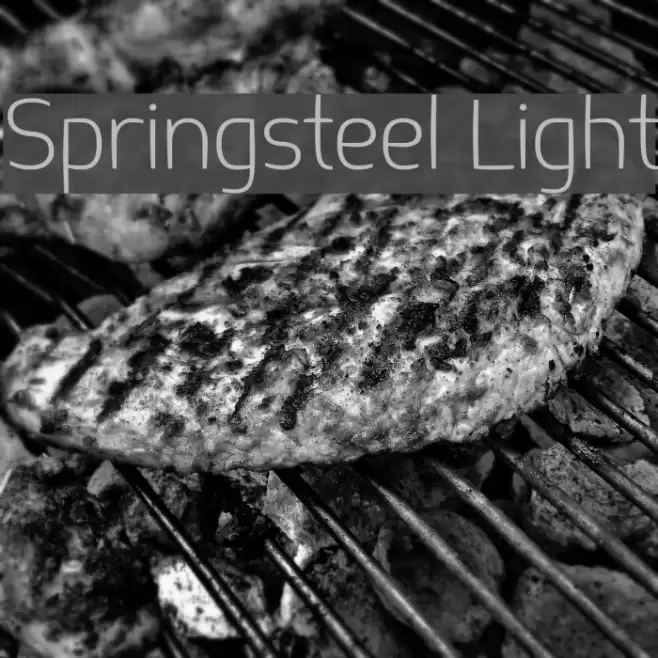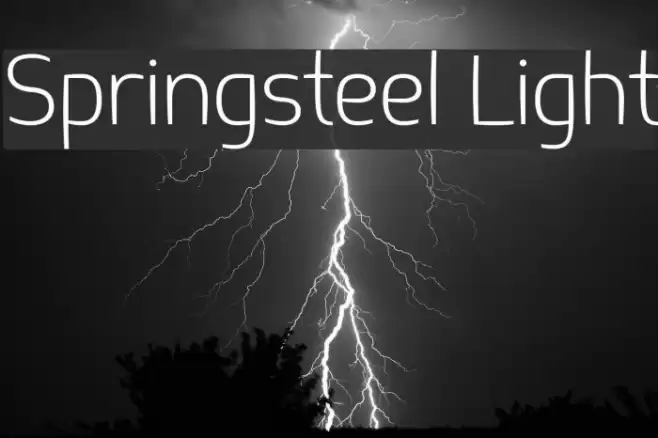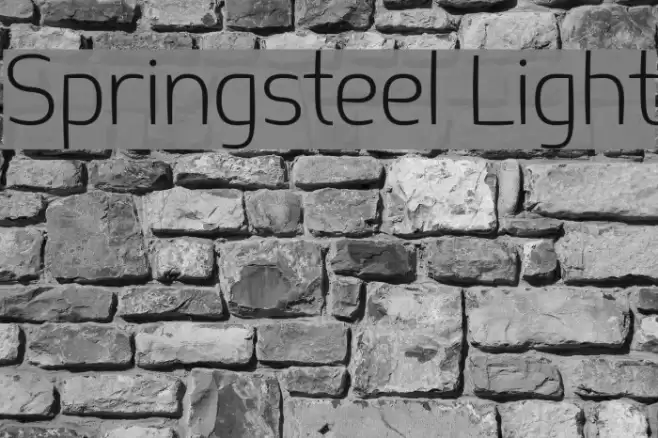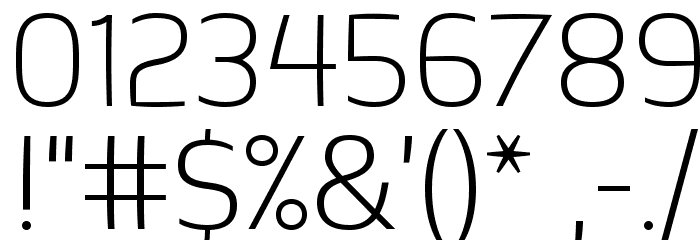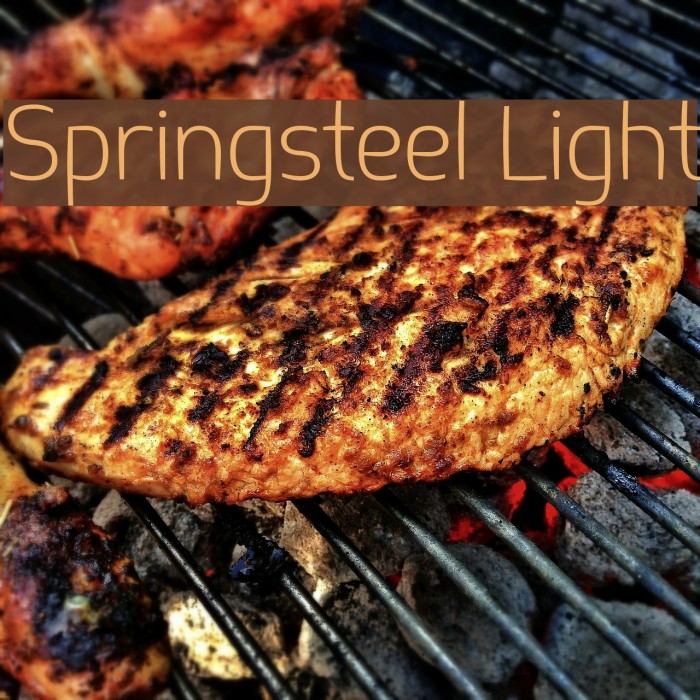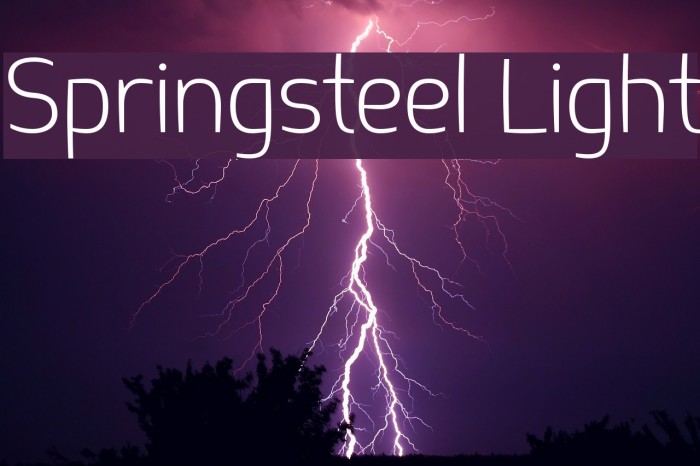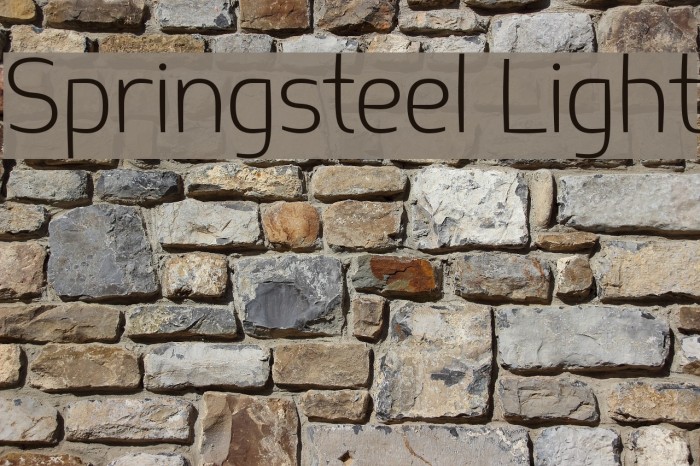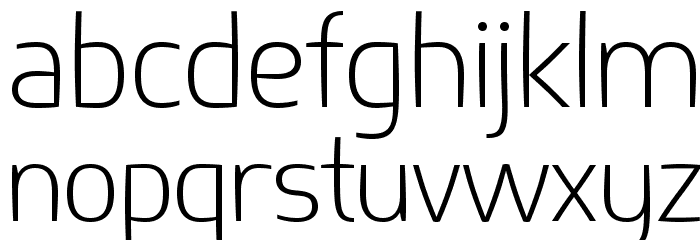
Springsteel Light Font
Springsteel Light Description
This font features a clean and modern design with a light weight, offering a sleek and streamlined appearance. The characters are slightly condensed, contributing to a contemporary aesthetic that is both functional and stylish. The font maintains a consistent stroke width throughout, providing a uniform look that enhances readability. The rounded edges of the characters add a touch of softness, balancing the overall geometric structure. This font is versatile, suitable for a variety of design projects where clarity and elegance are desired.
A clean, modern, and slightly condensed font with rounded edges and consistent stroke width from Uncategorized fonts.
- Proposed Projects: Ideal for branding, web design, and editorial projects where a modern and clean look is essential.